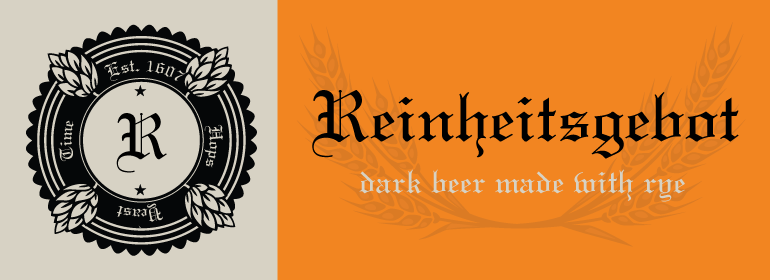
Linotext®
Linotext font was designed by Morris Fuller Benton in 1901 and first appeared with the name Wedding Text with American Type Founders in Jersey City, where its metal forms were cut by hand. The font was so popular that its forms soon began appearing with other font foundries under different names, Elite Kanzlei with D. Stempel AG, Comtesse with C.F. Rühl, etc. Its ornamental forms are not considered very legible by today's standards and Linotext font should therefore be used for headlines and short texts in point sizes 12 or larger.